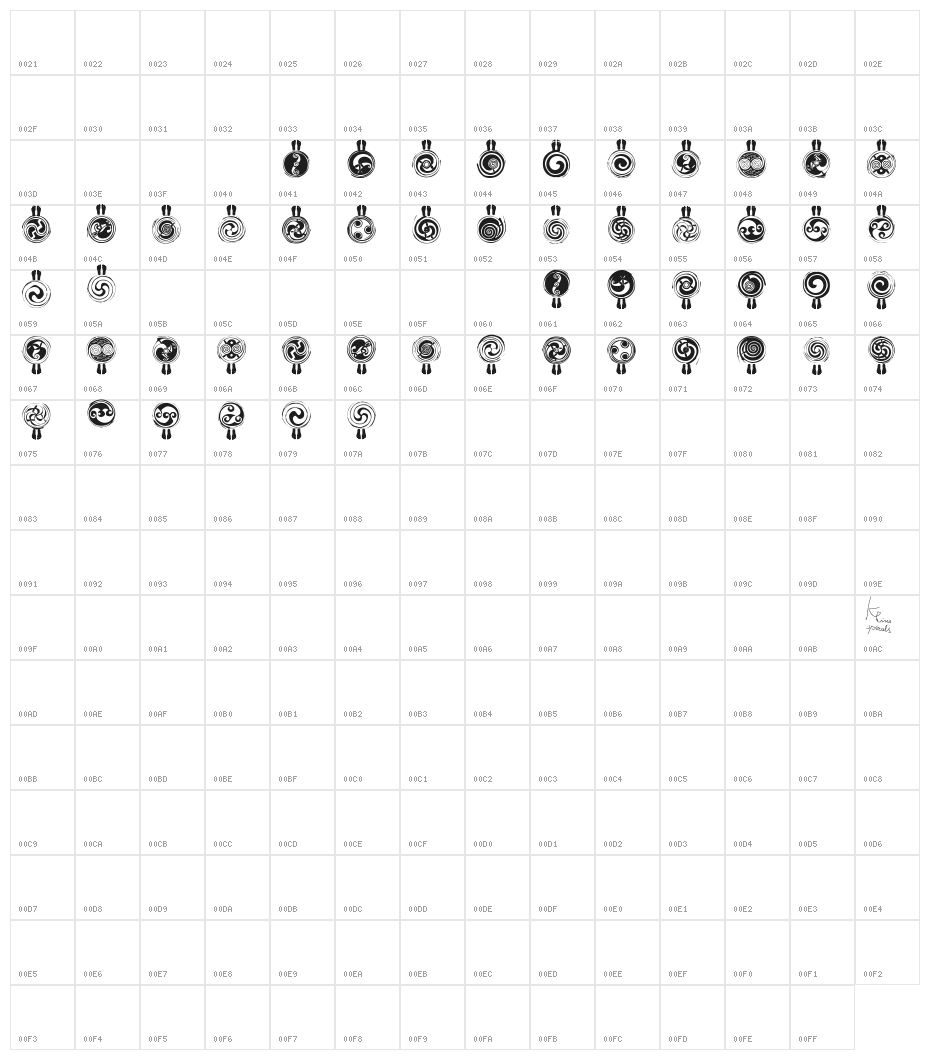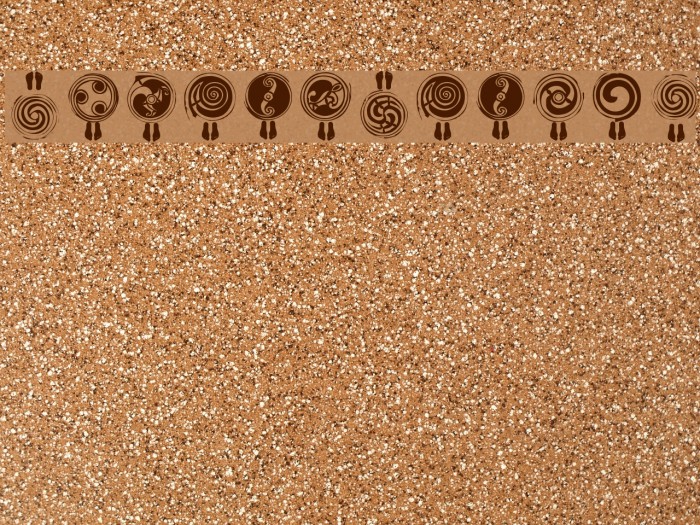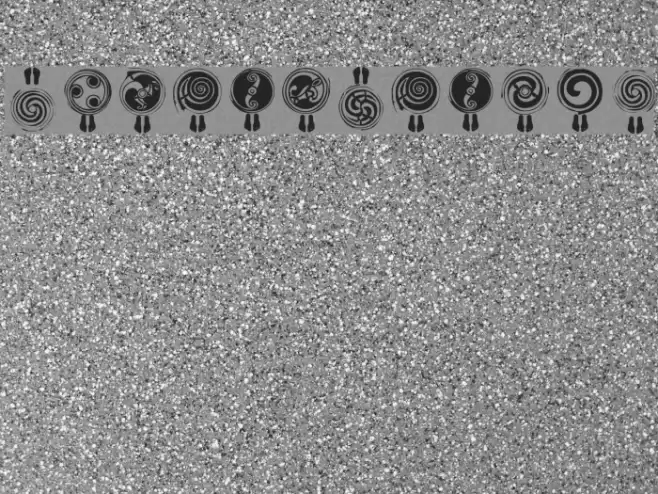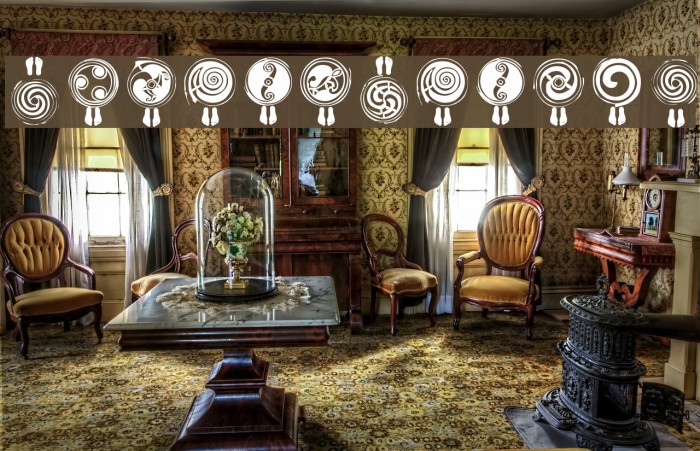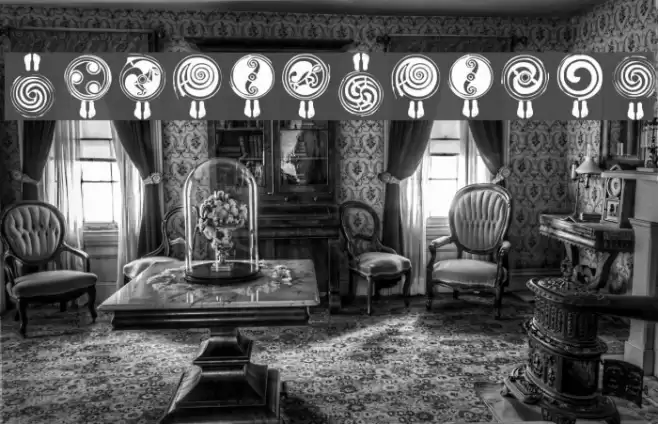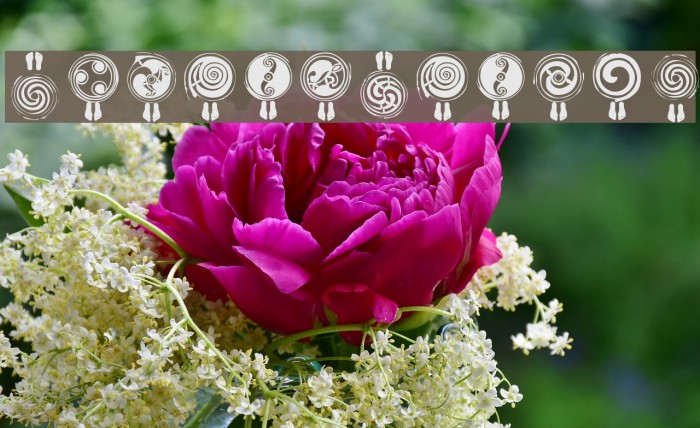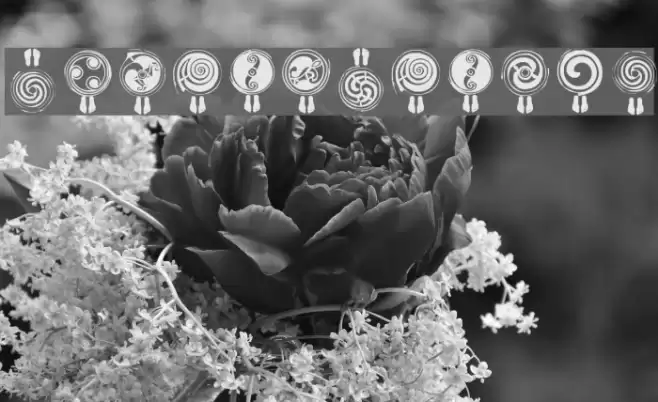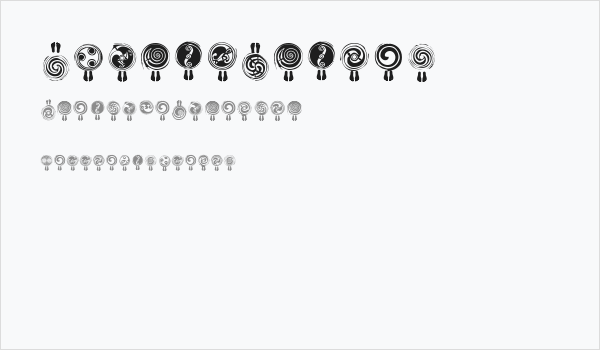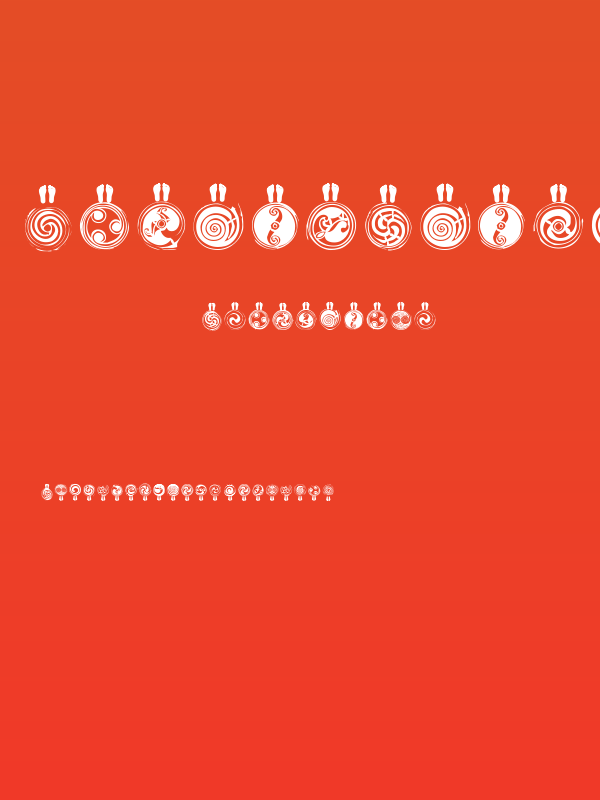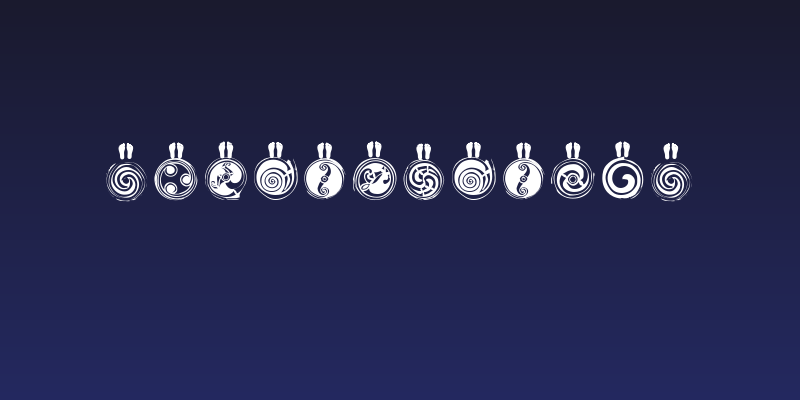
SpiralTraces Font
SpiralTraces Description
This design features a series of intricate spiral patterns enclosed within circular shapes. Each character is uniquely crafted, showcasing a variety of spiral forms that range from simple to complex. The high contrast between the black and white elements enhances the visual impact, making each symbol stand out distinctly. The overall style is decorative and artistic, with a playful yet sophisticated feel. The uniformity in size and shape across the set provides a cohesive look, while the diversity in spiral designs adds an element of surprise and creativity.
| Use Case | Logos, Decorative elements |
| Proposed Projects | Ideal for use in artistic projects, logo design, decorative elements in digital or print media, and unique branding materials. |